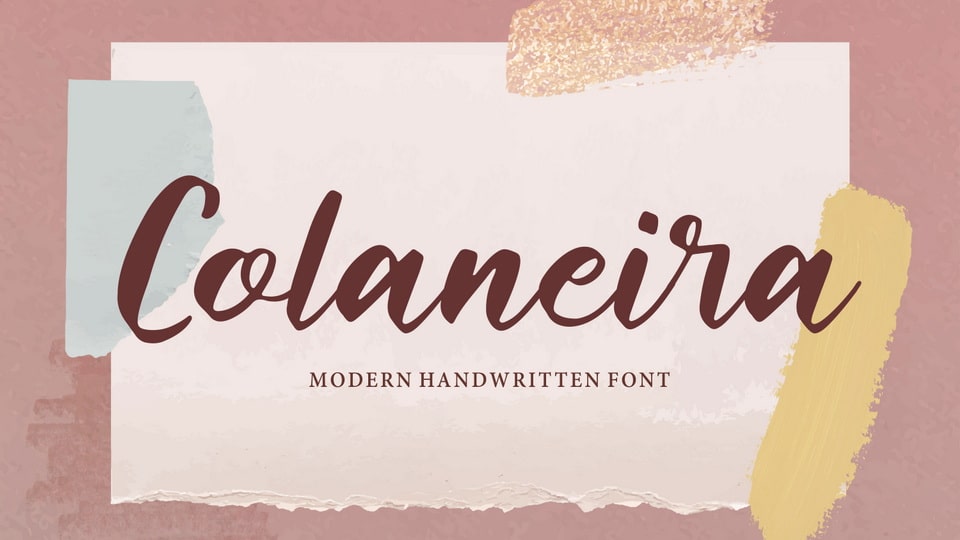
Download Colaneira font a script font inspired by modern and handwritten characters. Colaneira is especially designed for simple, casual, kids projects.